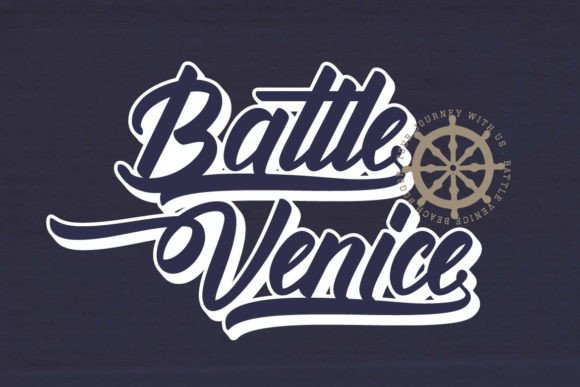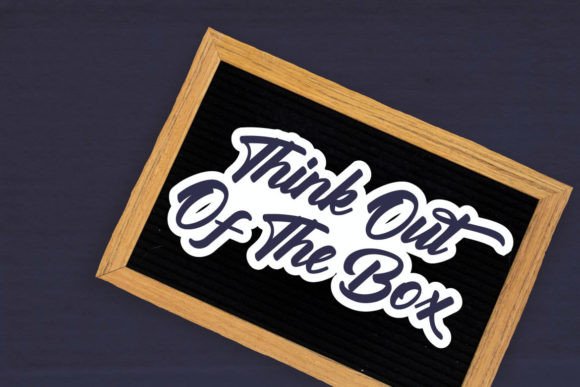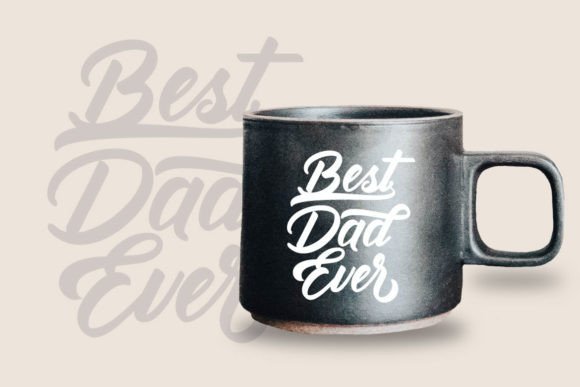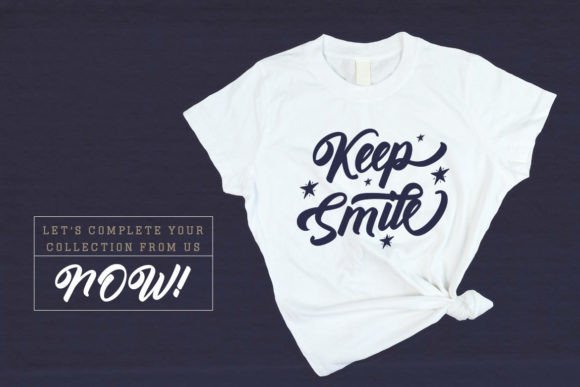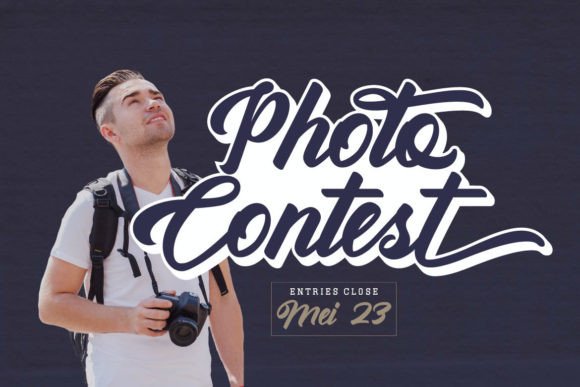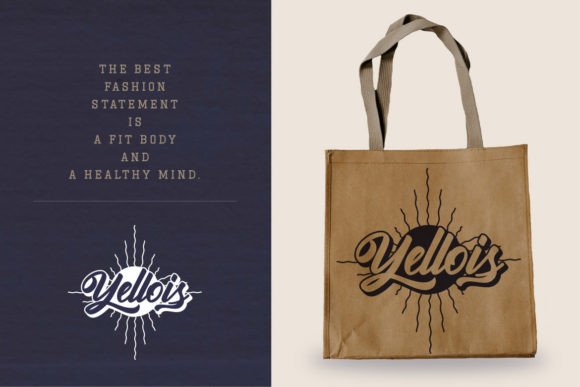
Introduction to Kathopis Font
Have you ever been working on a creative project, pouring your heart and soul into it, only to be held back by the limitations of your font choices? You envision a beautiful, hand-written style, but struggle to find the perfect combination of vintage charm and modern flair. This is where the Kathopis Font comes in – a powerful brush script font that’s about to revolutionize your design workflow.
With its unique blend of classic and contemporary elements, the Kathopis Font is the perfect solution for designers looking to add a touch of elegance and sophistication to their work. Whether you’re creating logotypes, branding materials, or promotional ads, this font is sure to impress. And the best part? It’s available for free download, making it an invaluable resource for any creative project.
As a valuable design resource, the Kathopis Font offers a high-quality, transparent background that’s perfect for any application – from social media graphics to merchandise designs. Its versatility and ease of use make it an essential tool for designers of all levels, and its free download means you can use it as much as you want, without breaking the bank.
Key Features of Kathopis Font
- High-quality font designed for creative projects, ideal for designers and artists.
- Perfect for use in logos, branding, and other creative projects where a unique font is required.
Honest Review: Kathopis Font
I recently had the chance to work with the Kathopis Font, and I’m excited to share my thoughts with fellow designers.
What works well: ✨ The Kathopis Font is a high-quality font that offers a unique and creative touch to any project. Its bold and elegant design makes it perfect for headings and titles in a variety of creative projects. The font is also available for free download, making it a valuable resource for designers on a budget.
- Perfect for headings and titles
- Unique and creative design
However, I did encounter some limitations: ⚠️ The font lacks support for a transparent background, which can be a challenge when designing for digital applications. Additionally, the font may not be suitable for all types of projects, particularly those that require a more minimalist or subtle approach.
Overall, I’m impressed with the Kathopis Font’s potential and versatility. While it may not be perfect for every project, it’s a valuable resource for designers looking to add some creativity and flair to their work.
Tips for Getting the Most Out of Kathopis Font
Use the Kathopis Font in combination with other high-quality design resources to create a cohesive and visually appealing design. Experiment with different font sizes and colors to add depth and interest to your designs.
The Kathopis Font is ideal for use in creative projects, such as logos, brochures, and social media graphics. Its transparent background feature makes it a great choice for designing overlays and graphics that require a clear background.
Alternatives to Kathopis Font
Abril Fatface is a high-quality, elegant script font perfect for creative projects that require a touch of sophistication. It features a transparent background, making it ideal for overlaying on images or other design elements. This font is ideal for use in wedding invitations, branding, and other design projects where a refined, handwritten feel is desired. Compared to Kathopis Font, Abril Fatface has a more refined and delicate look, making it suitable for projects where a softer, more subtle aesthetic is required.
Playfair Display is a luxurious, high-end font that exudes elegance and sophistication. Its high-quality design and transparent background make it perfect for use in creative projects, such as branding, advertising, and editorial design. This font is ideal for use in situations where a high-end, premium feel is desired. Compared to Kathopis Font, Playfair Display has a more dramatic and luxurious look, making it suitable for projects where a sense of opulence is required.